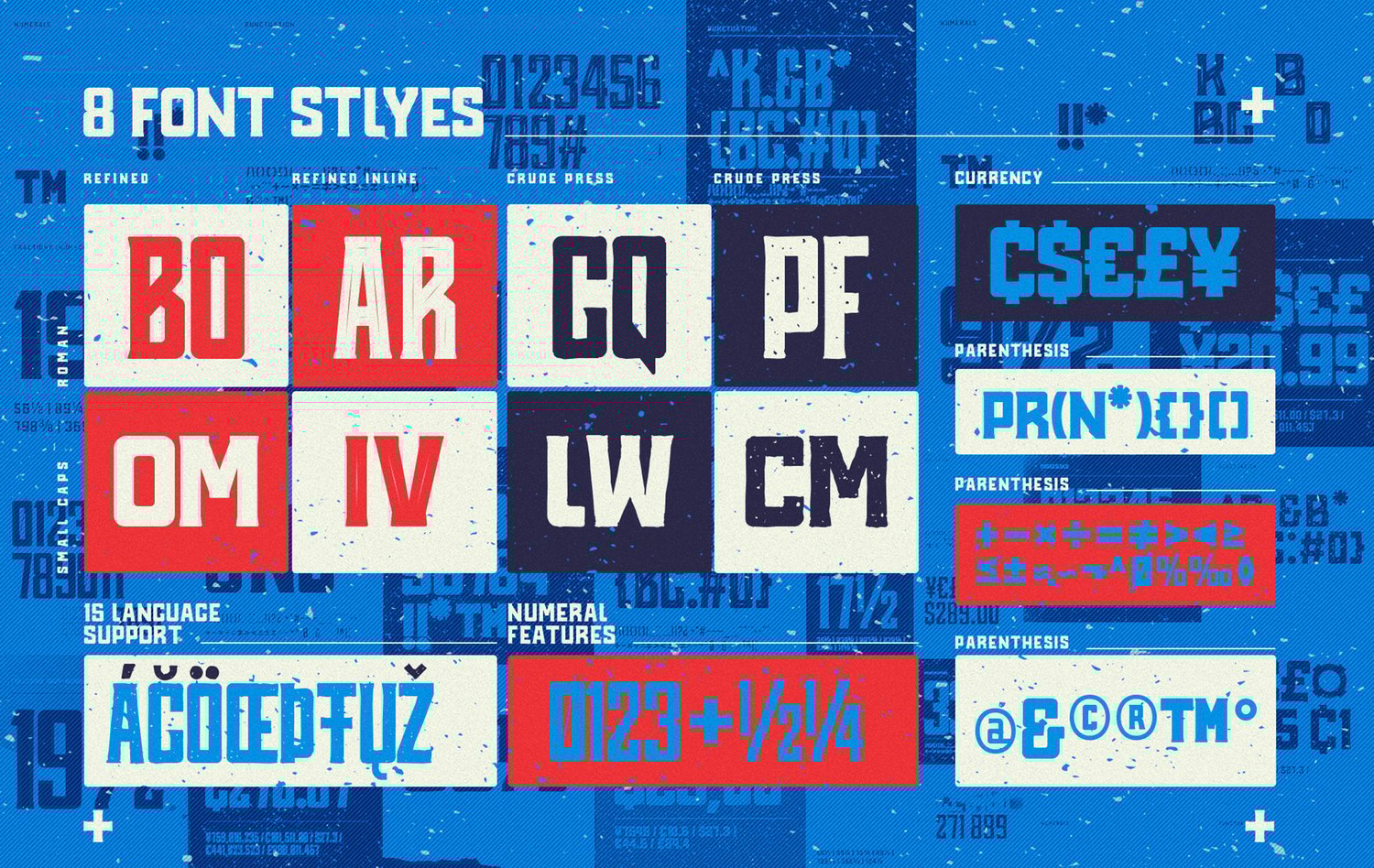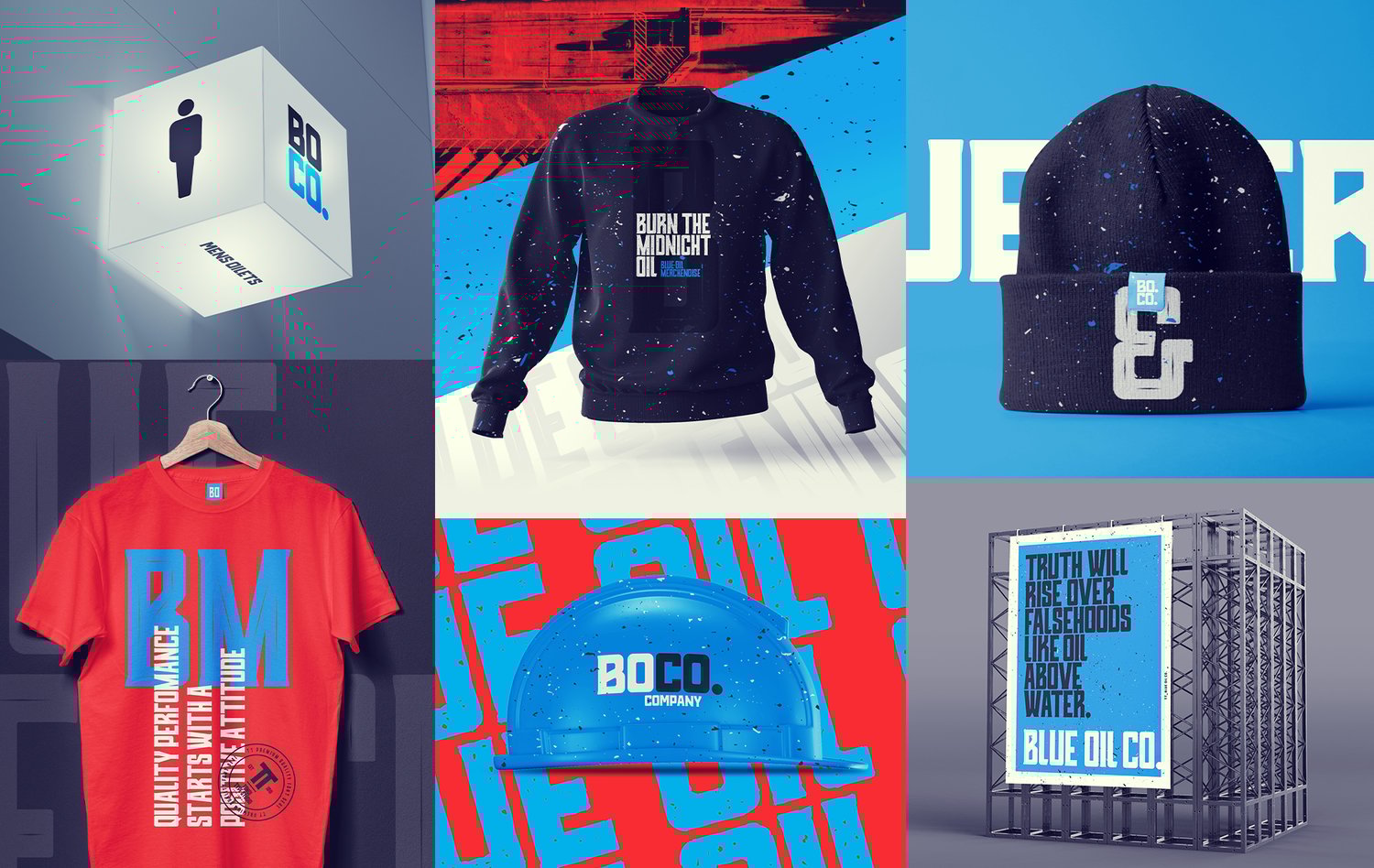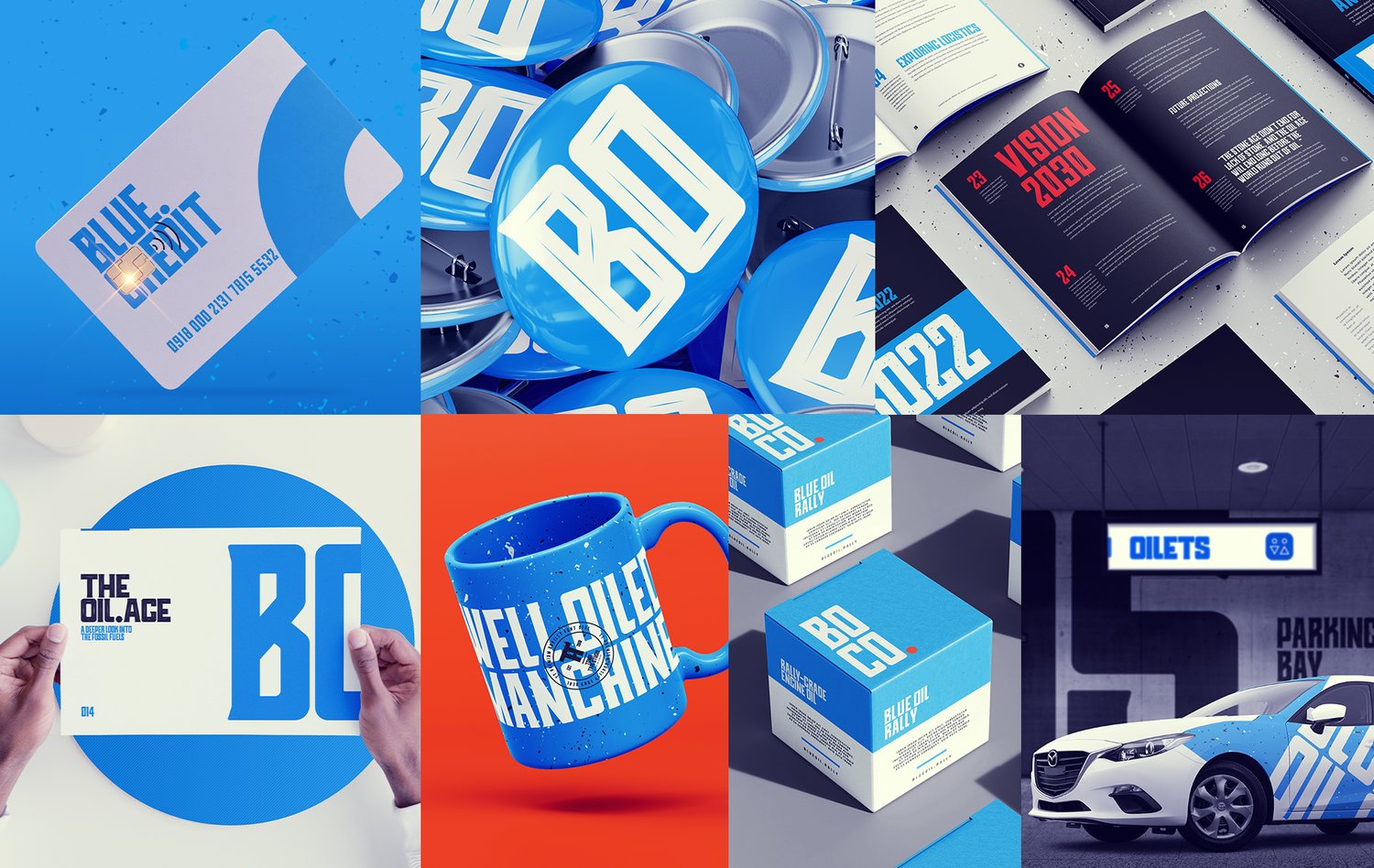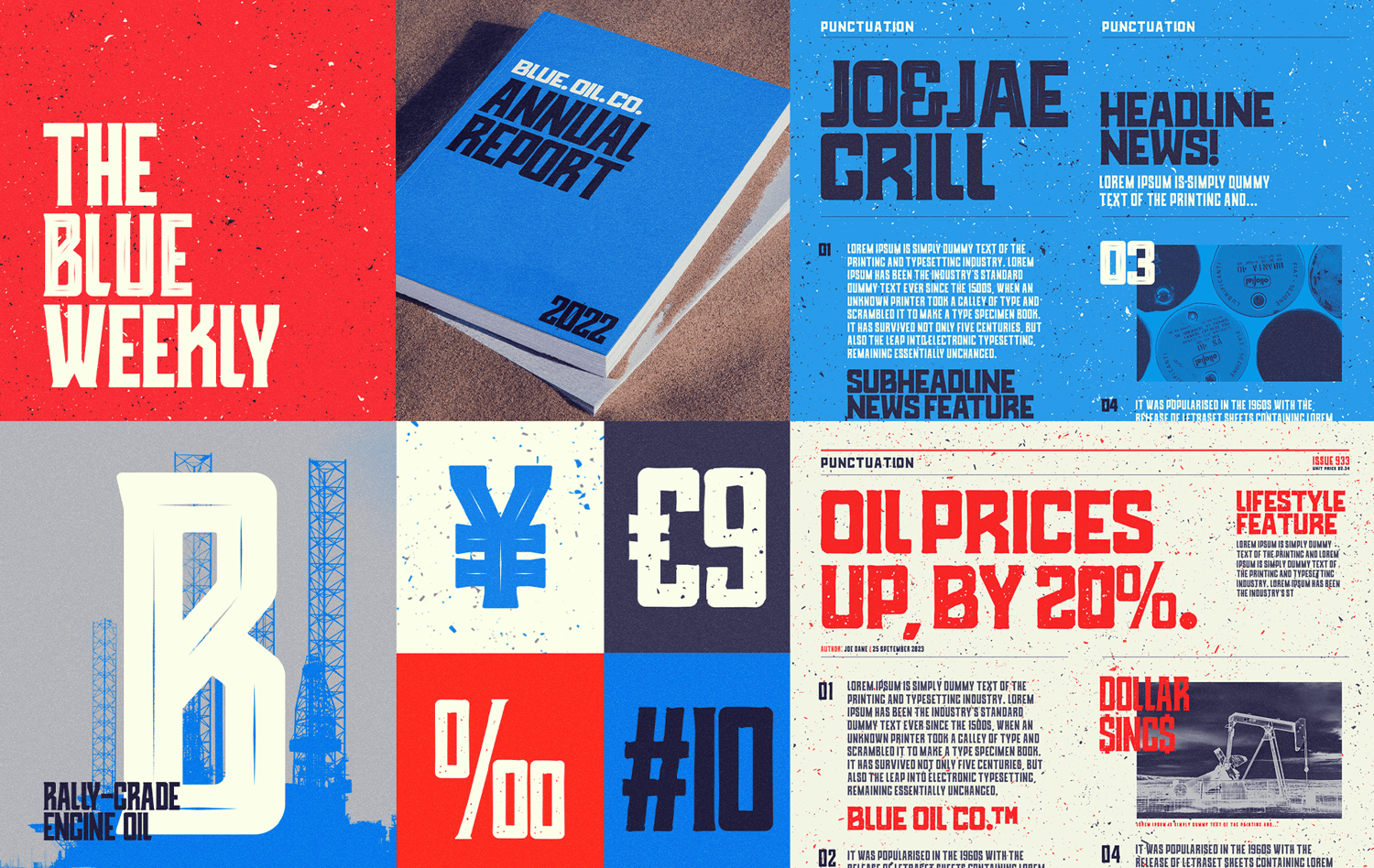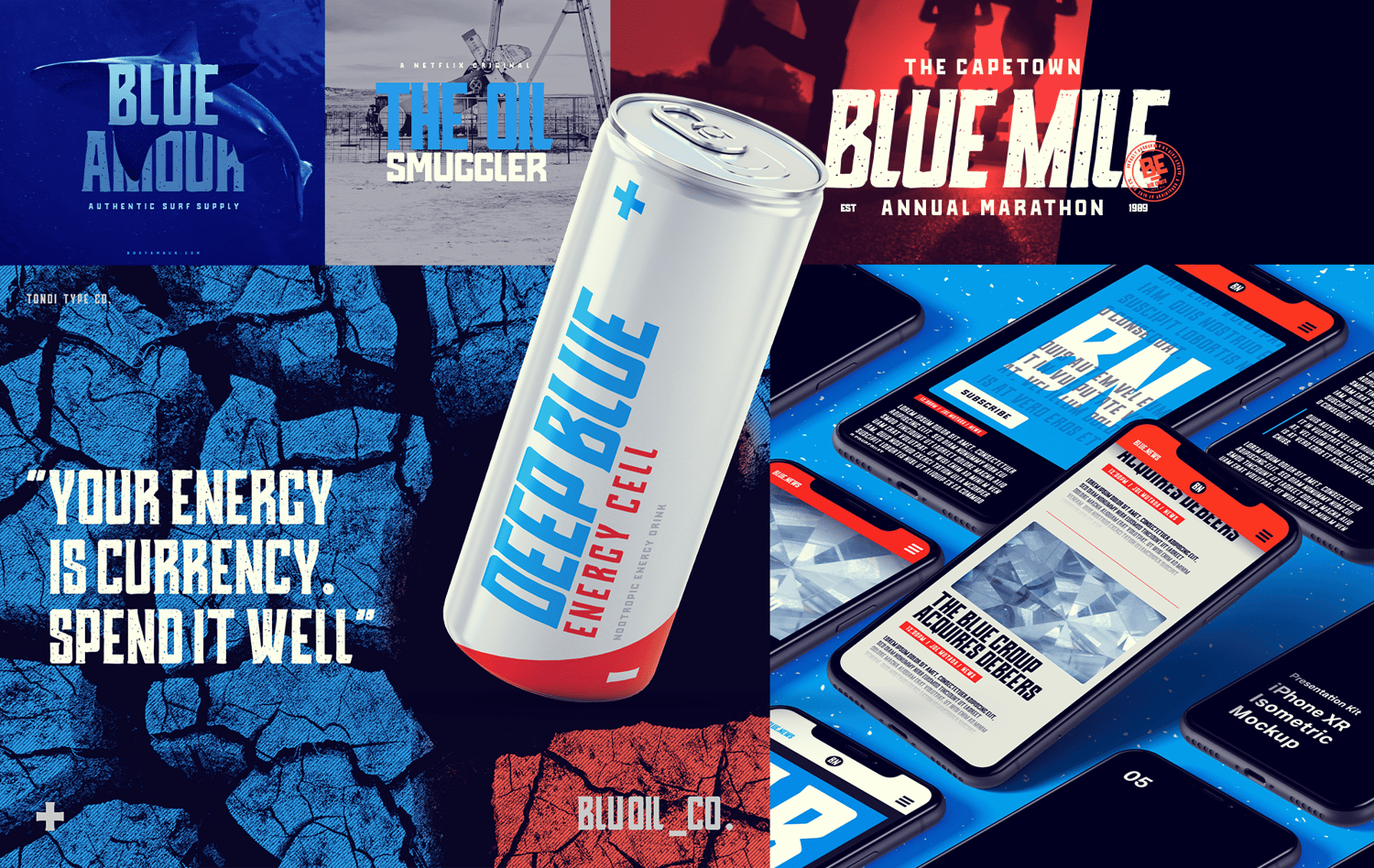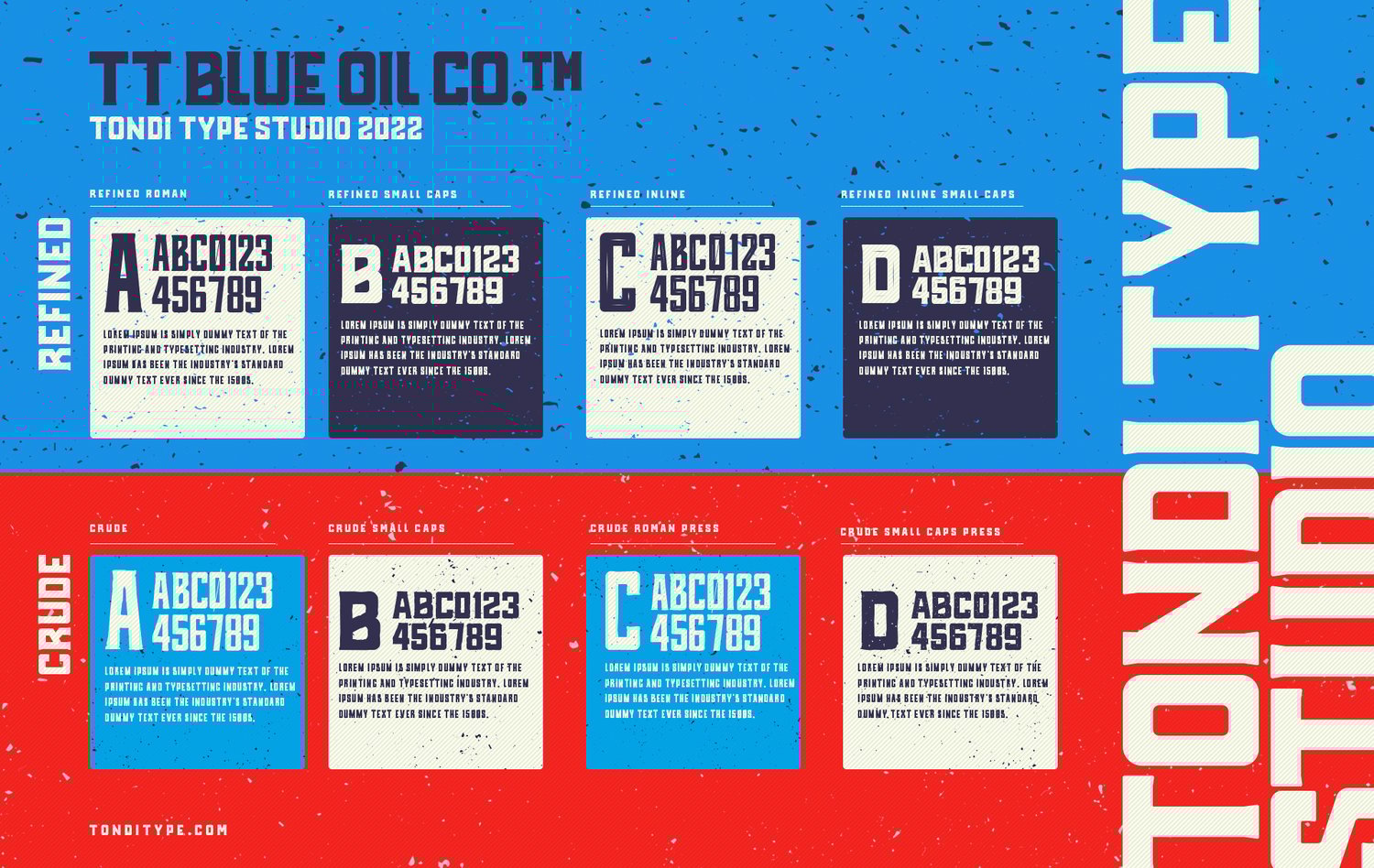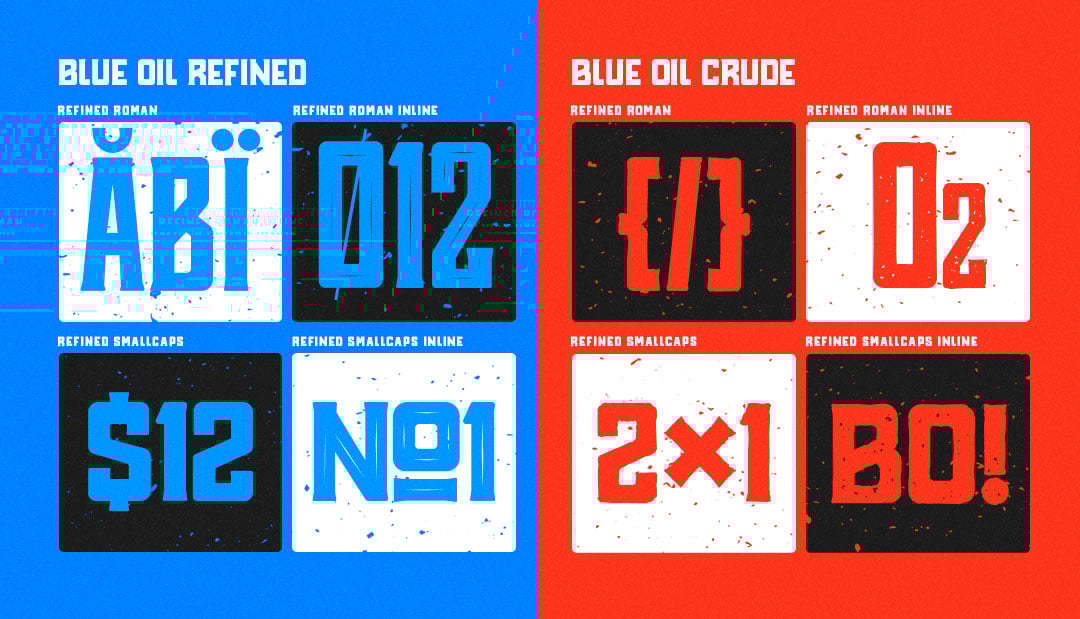
Blue Oil Co. | Vintage Font Family
Introducing Blue Oil Co. - 🖋️ A Vintage Inspired Serif Font Family ✨
Dive into the world of vintage elegance with Blue Oil Co., a fusion of geometric sans
and classic serif finishes. Its rectangular letterforms with rounded corners and subtle
serifs create a unique blend of sophistication.
Unleash Your Creativity:
With an array of styles, from clean to grungy, Blue Oil Co. offers versatility for your designs. Choose between two main styles - Refined and Crude - each with four variant styles, including Roman Capitals and Small Capitals for captivating contrasts.
Endless Possibilities:
Ideal for retail branding, wordmark design, social media, apparel, brand identity, and UI design, Blue Oil Co. empowers your projects with timeless charm and character.
Blue Oil Co. comes in 8 styles:
Blue Oil Co. Refined:
- Refined Roman,
- Refined SmallCaps,
- Refined Inline,
- Refined Inline SmallCaps
Blue Oil Co. Crude
- Crude Roman,
- Crude SmallCaps,
- Crude Roman Press,
- Crude SmallCaps Press.